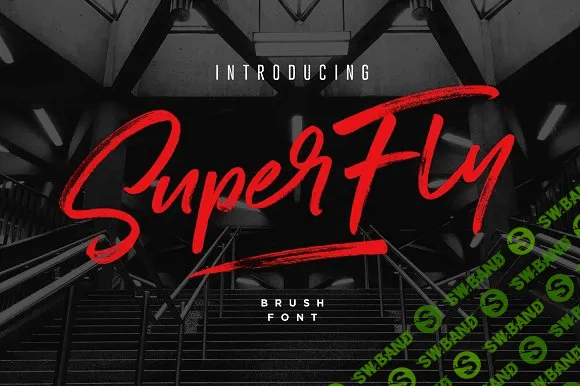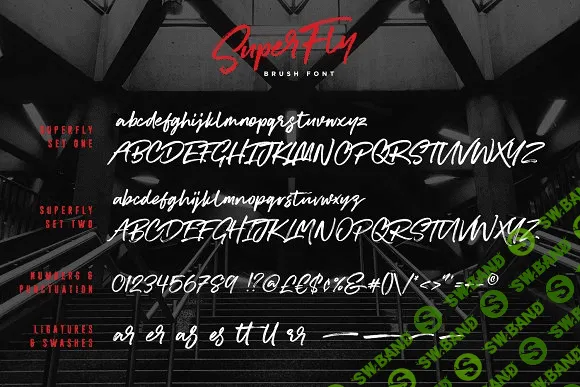
Название: SuperFly Font
SuperFly combines attractive curves with a fresh urban edge; delivering a stylish script which is guaranteed to add an eye-catching appeal to your logo designs, brand imagery, handwritten quotes, product packaging, merchandise & social media posts.